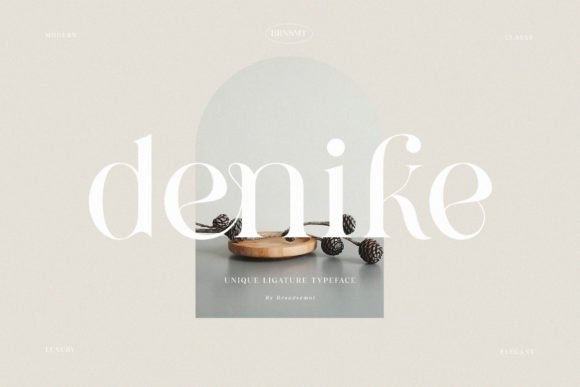
Discover the Bold Elegance of the Denike Font
Do you remember the moment when you stumbled upon the perfect font to elevate your design project? For many of us, it’s that instant spark of creativity that sets our imagination ablaze. For designers seeking a font that embodies strength and sophistication, look no further than the captivating Denike Font. This modern serif font boasts bold and elegant characters that make it a standout choice for a wide range of applications.
Whether you’re creating a newspaper, book cover, banner, business card, or marketing material, the Denike Font is sure to make a lasting impression. Its versatility and timeless charm have made it a valuable addition to any designer’s toolkit, offering endless possibilities for creative expression. With the Denike Font, you can infuse your designs with a sense of authority and refinement, setting you apart from the crowd and taking your projects to the next level.
- Unique Characteristics: Denike Font features a unique blend of modern and elegant designs, with intricate details and subtle nuances
Review of Denike Font
As a designer, I’ve had the chance to work with various fonts, and Denike is one of them. Here’s my honest take on this font.
- Unique Character: Denike has a distinct and quirky character that can add a touch of personality to any design.
- Legibility: It’s relatively easy to read, especially in body text, making it suitable for publications and websites.
- Style Versatility: Denike can be used in various design styles, from modern to vintage, giving designers plenty of creative freedom.
- Overuse: Denike’s quirkiness can be overwhelming if used excessively, making it essential to use it sparingly.
- Headline Limitations: While Denike works well in body text, it can be challenging to make it stand out as a headline font due to its rounded edges.
- Typographic Complexity: Denike’s unique character can be tricky to pair with other fonts, requiring more effort to create a harmonious typographic system.
Denike is a solid choice for designers looking to add a touch of whimsy to their designs. While it has its limitations, it can be a valuable addition to a designer’s toolkit when used thoughtfully. With its unique character and style versatility, Denike is sure to spark creativity and inspire new design ideas.
Denike Font is perfect for:
- Creating eye-catching headlines and titles
- Designing custom typography and graphics
- Adding a touch of elegance to presentations and documents